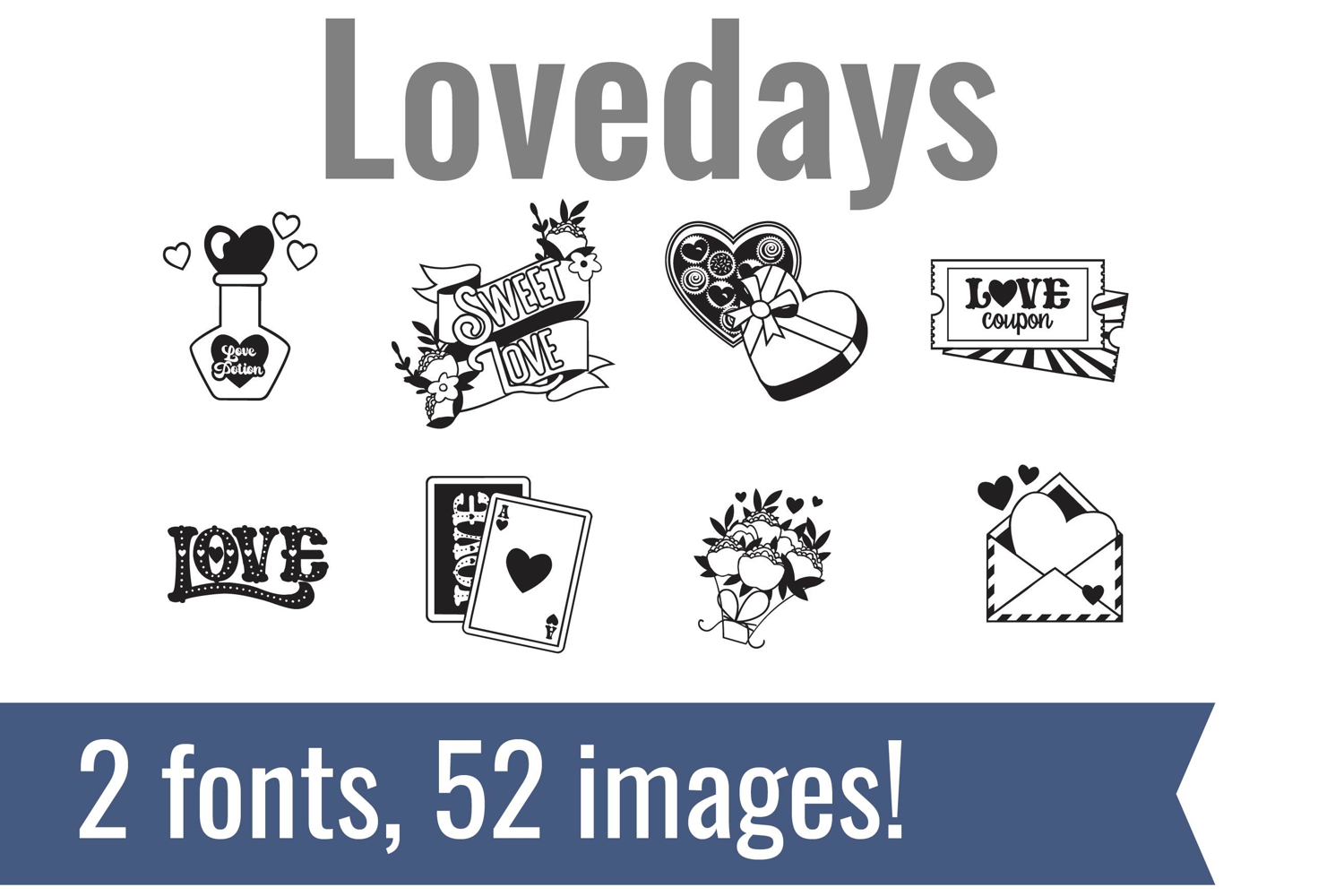
Lovedays Dingbats
Unlock endless creativity with two perfectly coordinated fonts! There are two dingbat fonts in this bundle, featuring the cutest Valentine, candy, and treat imagery.
Tired of spending hours searching for the perfect icons and graphics? Our dingbat fonts put dozens of cohesive, scalable designs at your fingertips. Simply install the font and type a letter to produce a pre-made image. From charming seasonal icons for holiday cards to intricate frames for your invitations, these fonts let you create stunning designs for vinyl cutting, paper crafts, planners, and more.